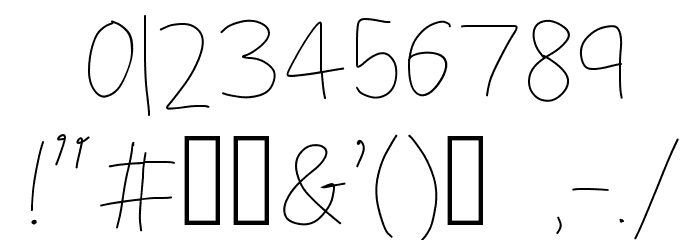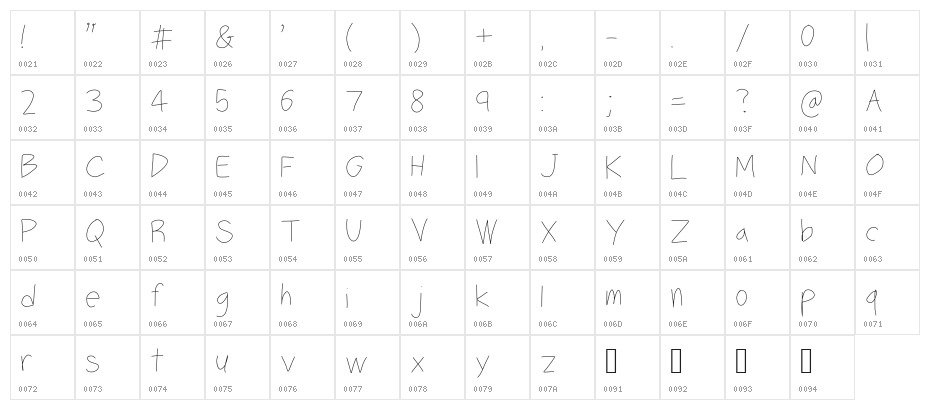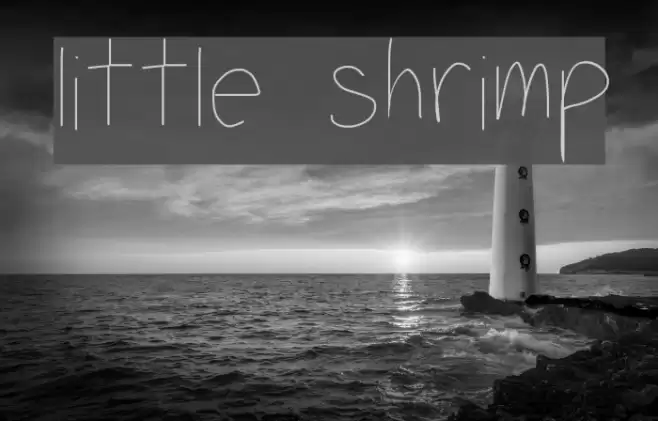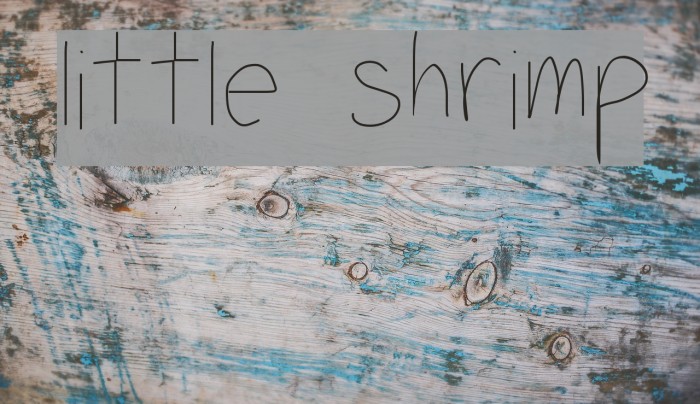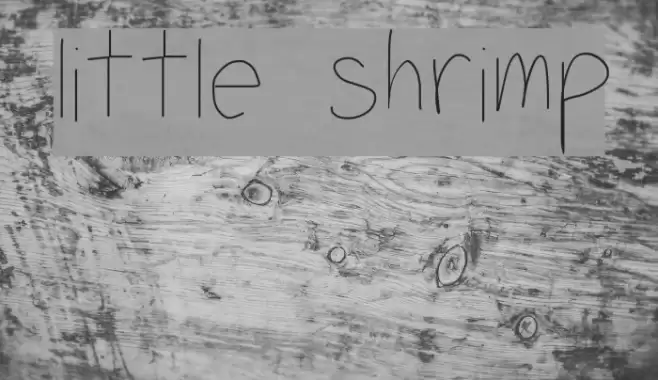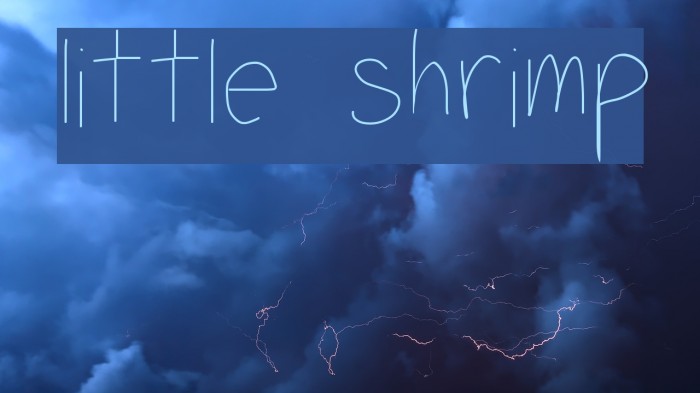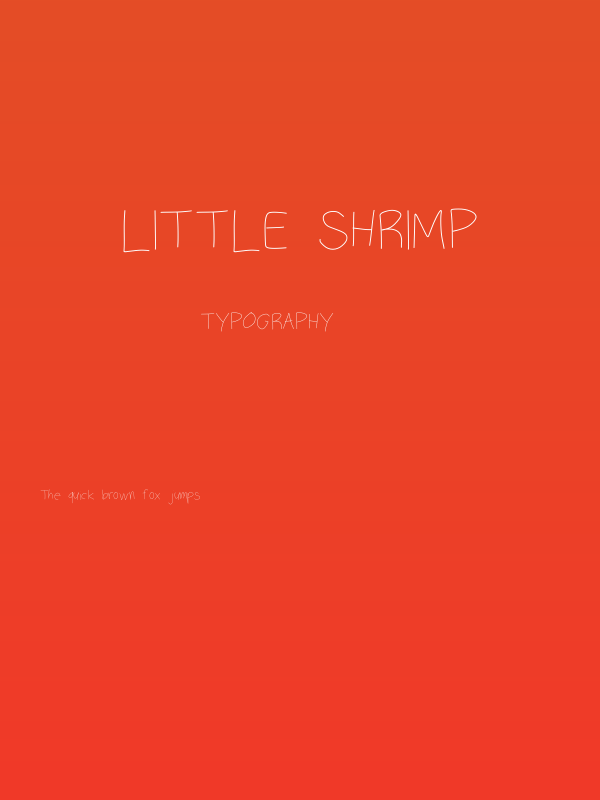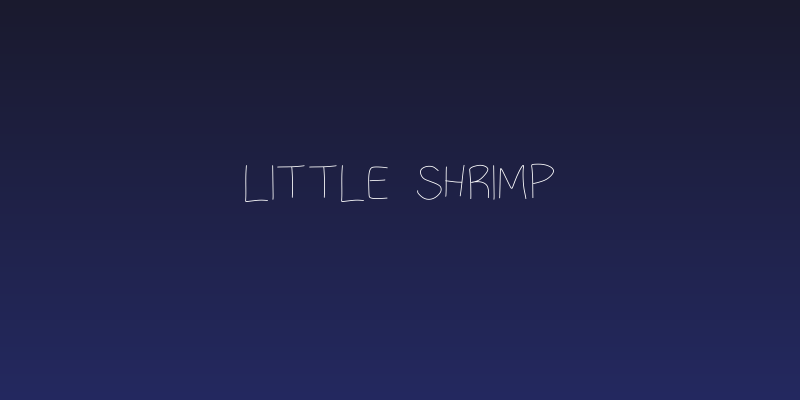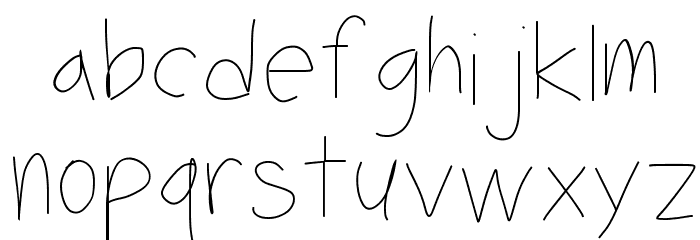
little shrimp Font
little shrimp Description
This font features a playful and casual handwritten style, characterized by its thin, slightly irregular strokes that give it a personal and informal touch. The letters are tall and narrow, with a consistent height across both uppercase and lowercase characters. The overall appearance is light and airy, making it suitable for projects that require a friendly and approachable feel. The numerals and special characters maintain the same whimsical style, ensuring a cohesive look across all text elements.
| Use Case | Headlines, Informal text, Personal projects |
| Proposed Projects | Ideal for greeting cards, children's books, casual invitations, and personal blogs. |